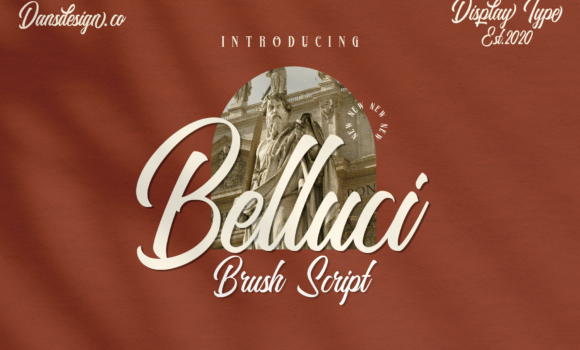
belluci
Belluci Font – Free Download Introduction to Belluci Font Belluci is a gorgeous and bold handwritten font, crafted to give your headlines and logotype projects a stylish touch. 📸 Preview Gallery 6 images 📌 Product Name Belluci Font 👤 Author